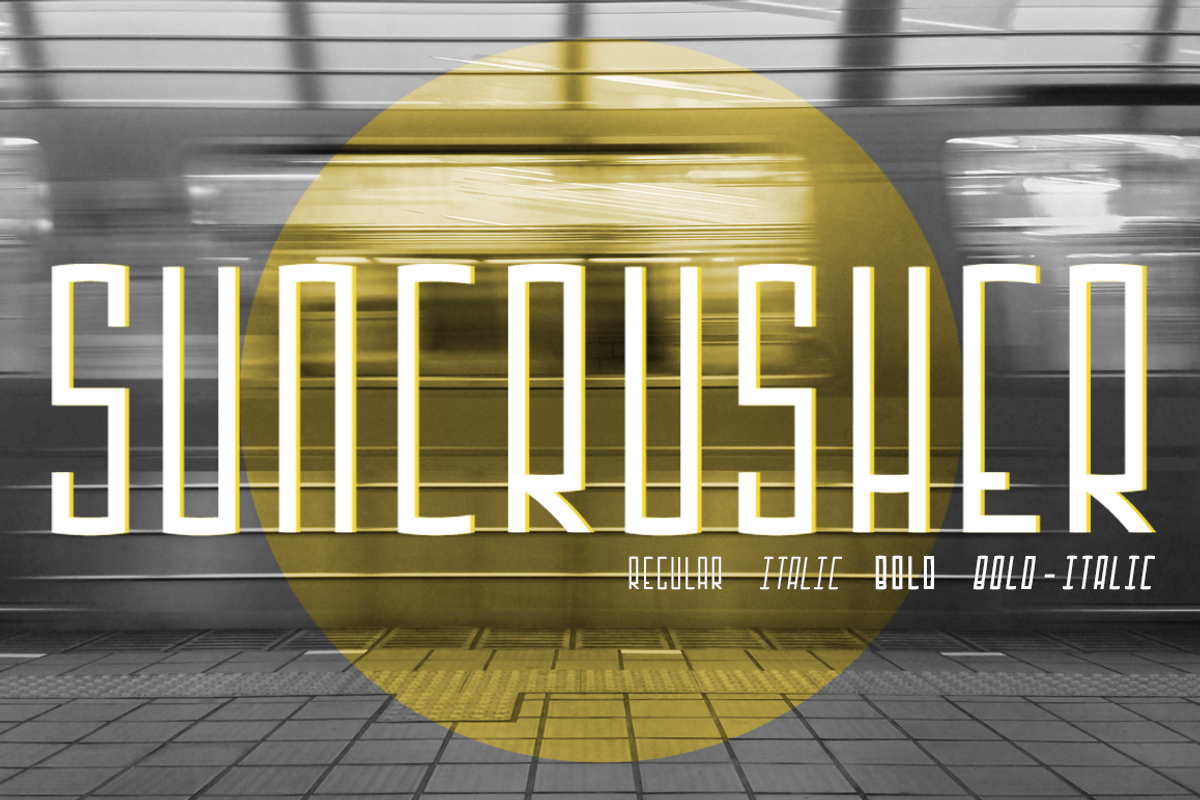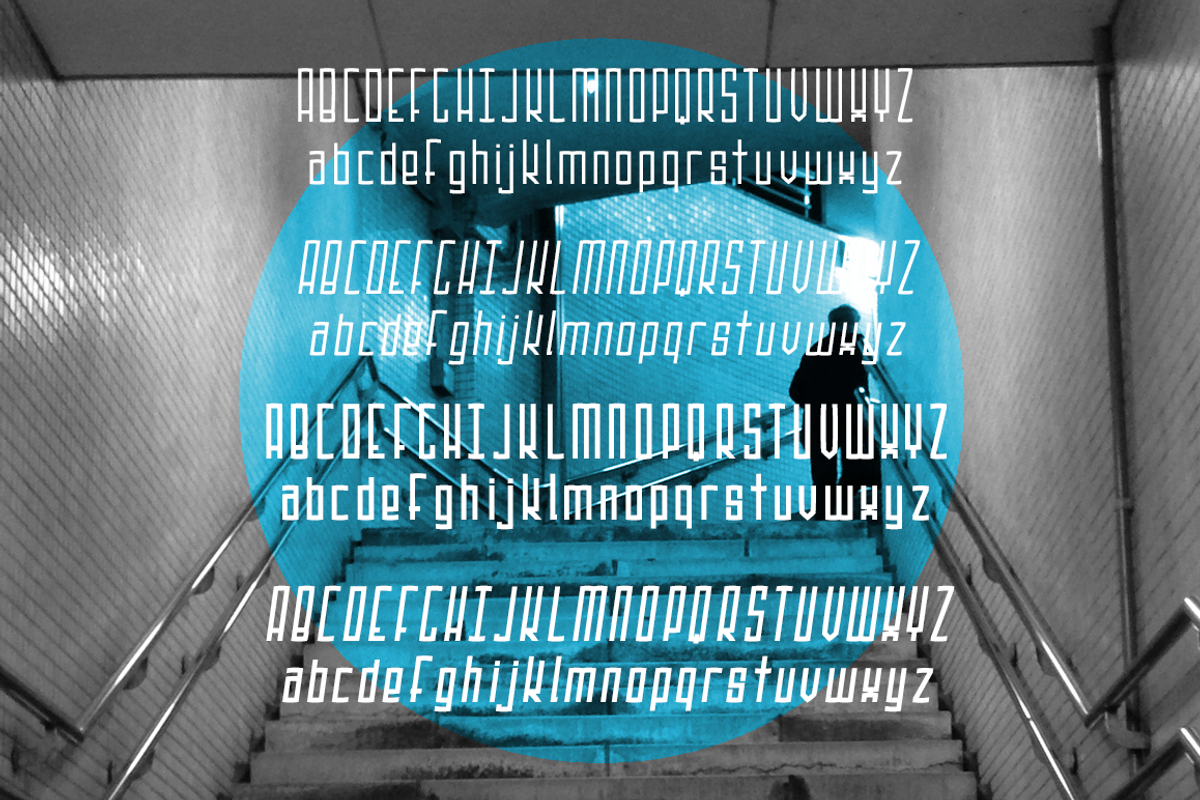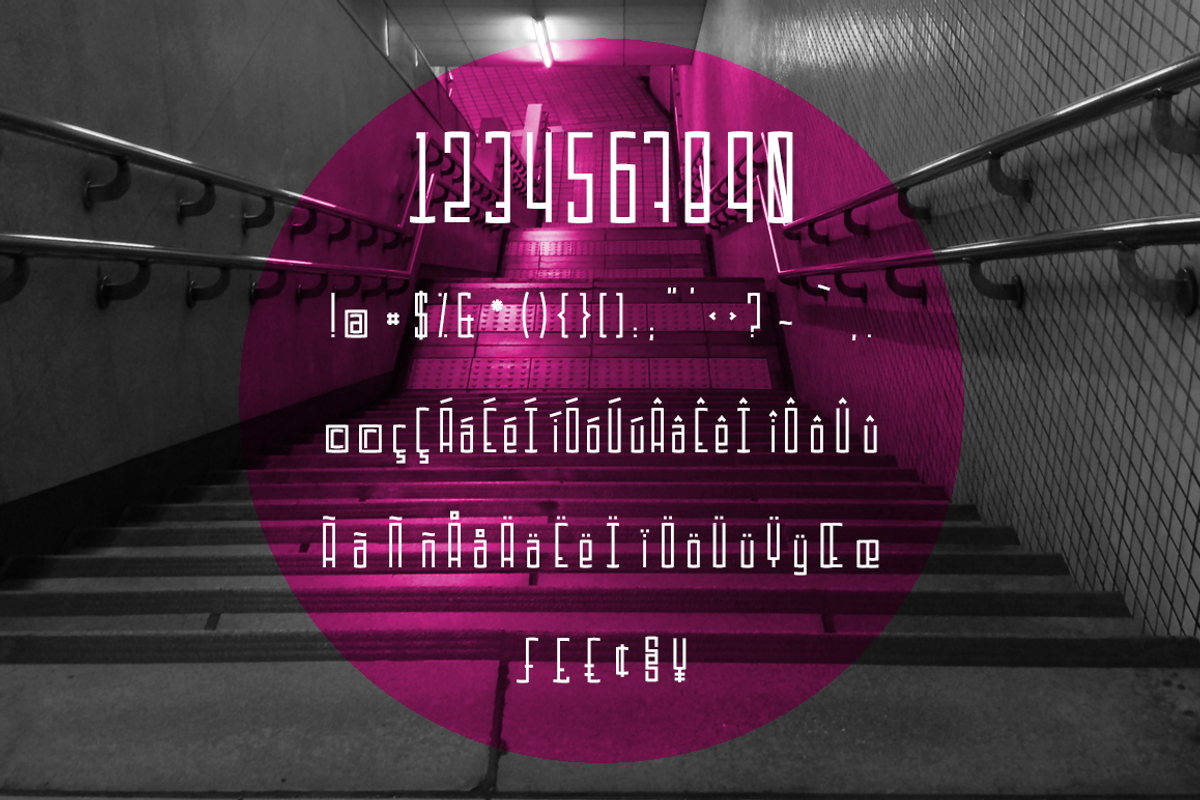
Suncrusher (4 Fonts)
Suncrusher (4 Fonts) by TypeKatsu is a font selected for branding, posters, packaging, typography.
Why Suncrusher (4 Fonts) is worth a look
Suncrusher (4 Fonts) by TypeKatsu fits naturally into Branding, posters, packaging, typography.